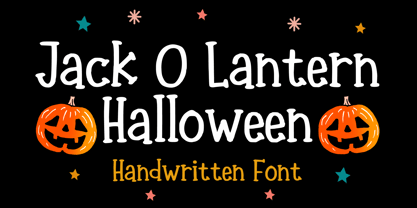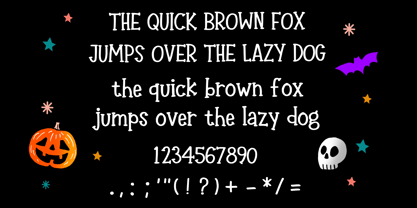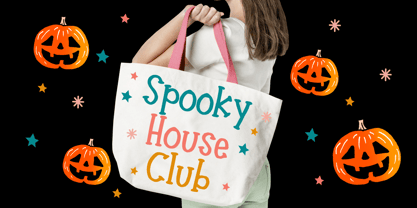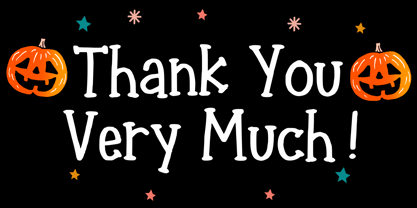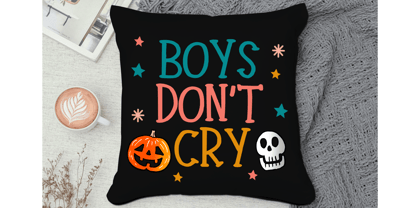
Jack O Lantern Halloween
by Mvmet
The Jack O Lantern Halloween Font Family was designed by Gabriel Valentinus and published by Mvmet. Jack O Lantern Halloween contains 1 styles. More about this family
Immerse yourself in the world of spooky creativity with Jack O Lantern Halloween, a versatile hand drawn font. Brimming with a playful classic aesthetic, it can effortlessly elevate your horror and Halloween-inspired projects. Broad in its utility, it can add a cool twist to your merchandise such as t-shirts and clothing or infuse your book designs with suspense. It's an ideal choice for a Halloween party or to give your greeting cards, stickers, posters, and banners a spine-chilling allure. Draw upon the power of Jack O Lantern Halloween to inject a dash of cute horror into anything you wish.
Designers: Gabriel Valentinus
Foundry: Mvmet